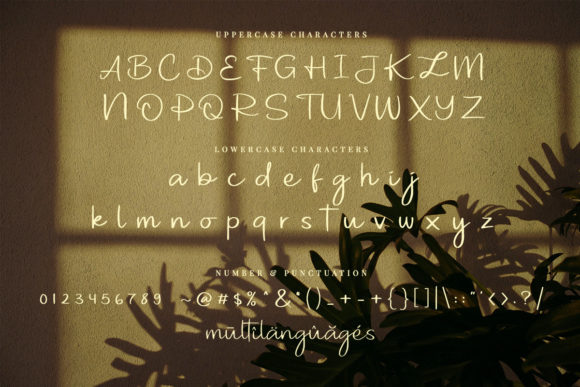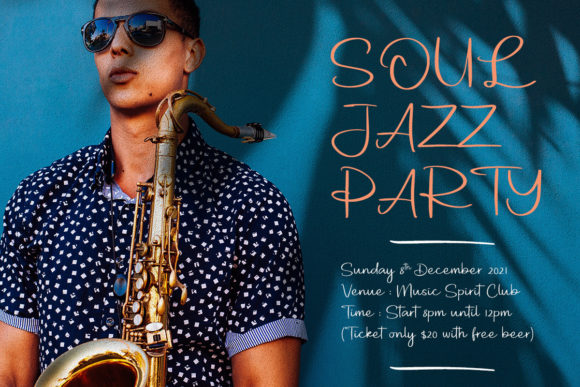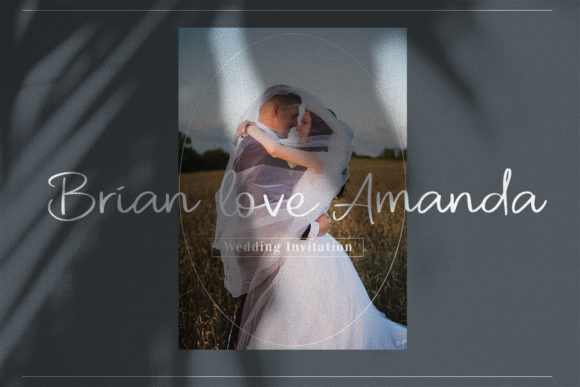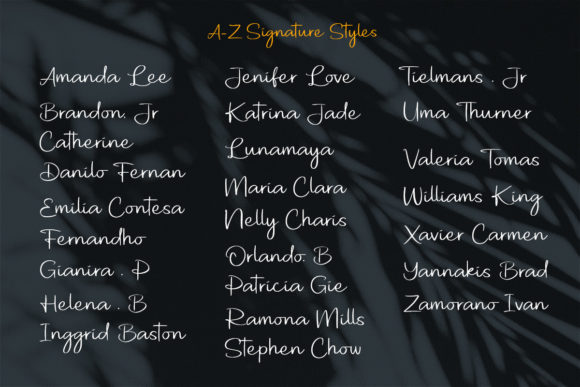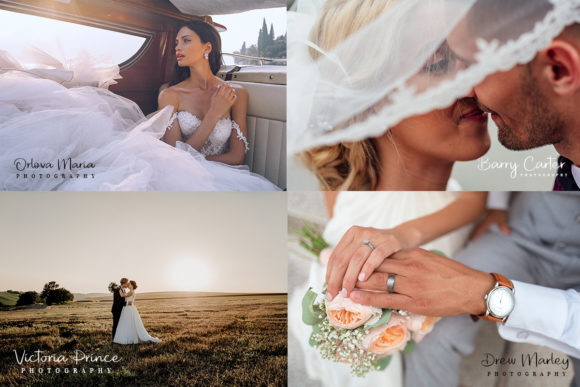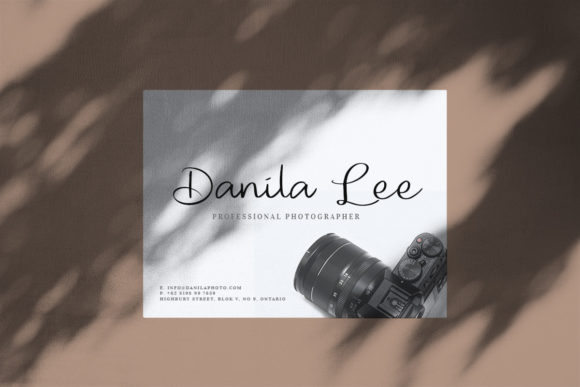
Discover the Magic of the Dragonaly Font
Have you ever been stuck on a design project, desperately searching for that one special element to make it truly stand out? That’s exactly what happened to me when I was working on a branding campaign for a luxury boutique. I wanted to convey sophistication and elegance, but nothing seemed quite right – until I stumbled upon the Dragonaly Font.
Created with precision and care, the Dragonaly Font is a beautiful script font that adds a touch of class to any design. Its delicate curves and refined lines make it perfect for those who need a refreshing look to elevate their work. Whether you’re a seasoned designer or just starting out, the Dragonaly Font is a valuable addition to your toolkit.
- Unique Characteristics: Dragonaly Font features a unique blend of fantasy and medieval elements, making it perfect for creating immersive and engaging designs.
Review of Dragonaly Font
Dragonaly Font is an intriguing addition to any design project. Here are some aspects that really stand out:
- ✨ Unique Character Set: The font has an extensive set of characters that will cover most of your design needs. From special symbols to mathematical equations, it’s all there.
- ✨ Customization Options: Dragonaly Font offers various styles and weights that can be combined to create a distinctive look for your project.
- ✨ High-Quality Typography: The font is well-designed, with clear and legible typography that makes it easy to read.
However, like any font, Dragonaly has its limitations:
- ⚠️ Limited Script Support: Unfortunately, the font’s script support is limited, which might not be ideal for projects that require extensive script usage.
- ⚠️ No Web Font Version: Currently, Dragonaly Font doesn’t have a web font version, which might make it challenging to use on the web.
Overall, I think Dragonaly Font is a great addition to any designer’s toolkit. While it has some limitations, its unique character set and customization options make it a versatile choice for various design projects. With some additional development to address the limitations, I believe Dragonaly Font has the potential to become a top-tier font choice.
For optimal results, use the Dragonaly Font in conjunction with bold and italic styles to add emphasis to your text. Experiment with different font sizes and colors to create visually appealing designs.
The Dragonaly Font is ideal for fantasy-themed designs, such as book covers, posters, and website headers. It’s also great for creating eye-catching titles and headings in presentations and documents.